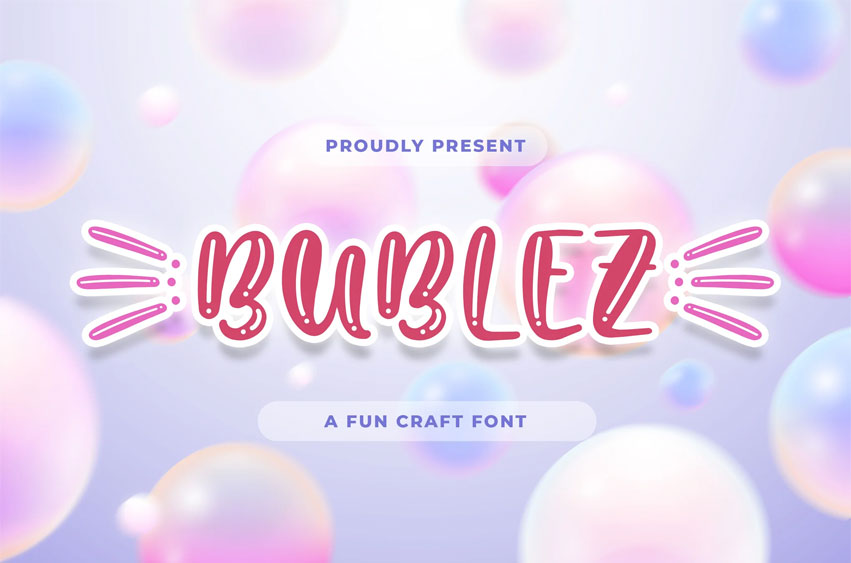
Bubblez Font Fun Craft font that will make your designs look unique and fun. It’s perfect for labels, quotes, posters, DIY projects, branding, packaging, greeting cards, websites, photography overlays, signs, window art, scrapbooking, tags and so much more!
Bubblez Font Preview